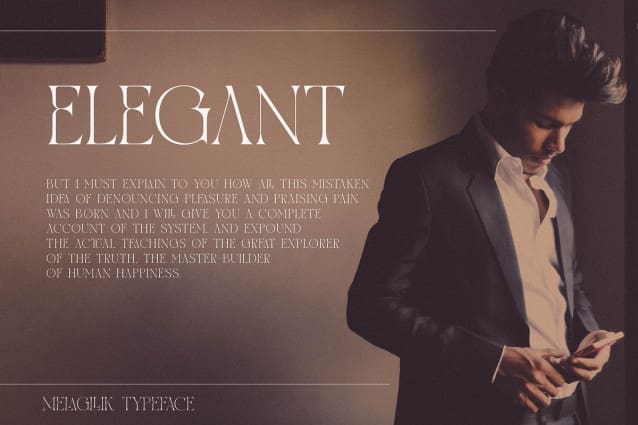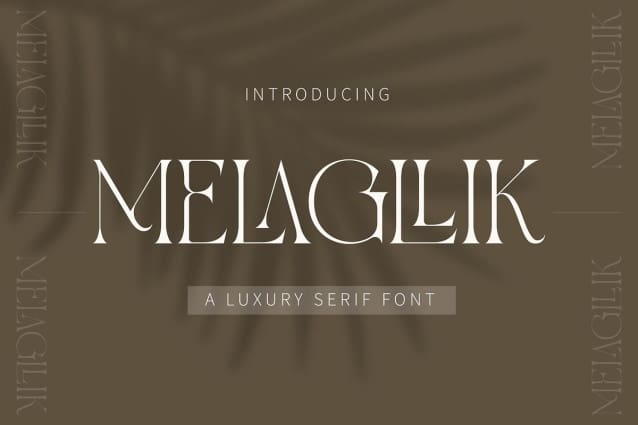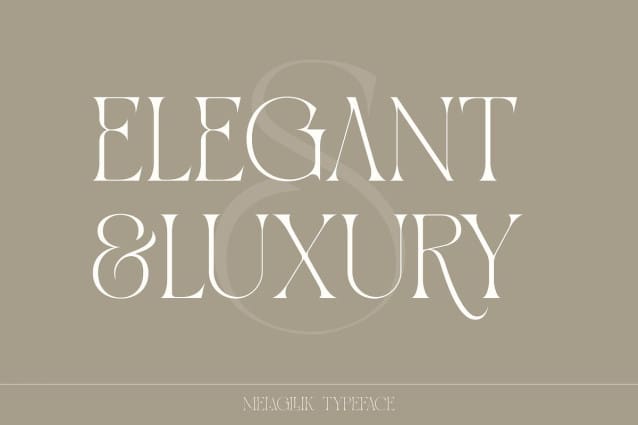
Melagllik Font
Melagllik Font – Modern Serif, created by Denustudio, A serif modern and classic typeface that has own unique style & modern look. This typeface is perfect for an elegant & luxury logo, book or movie title design, fashion brand, magazine, clothes, lettering, quotes, and so much more.